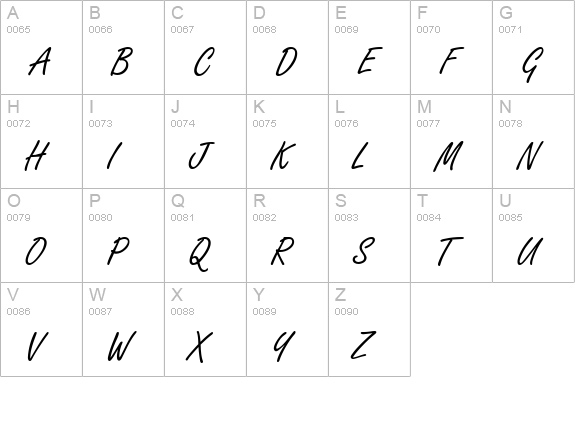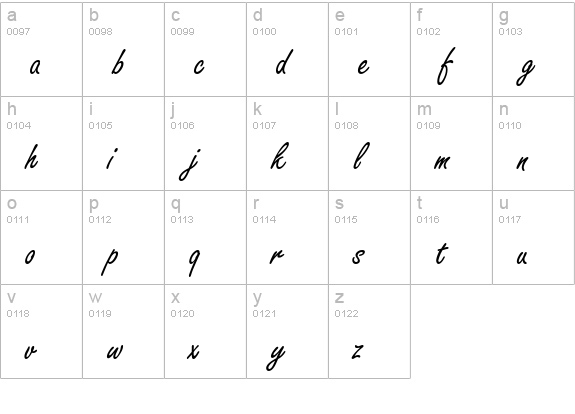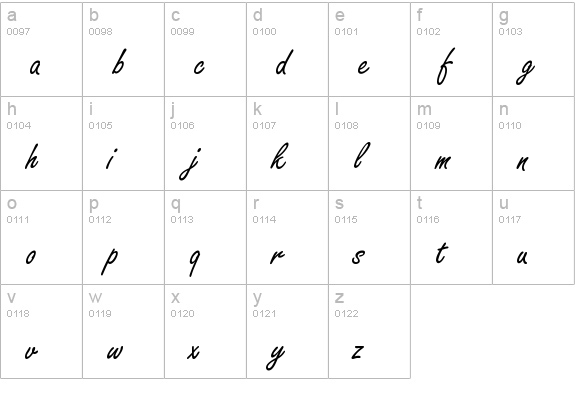
TR Freeport Plain Font Details
TR Freeport Plain font is a timeless and versatile typeface that exudes elegance and sophistication. With clean lines and a classic design, this font is perfect for a wide range of projects, from branding to editorial design. Its simplicity and readability make it ideal for both print and digital applications. What sets TR Freeport Plain font apart is that it is available for free download at FontsMarket.com. This means that you can access this high-quality font without any cost, making it a valuable asset for designers and creatives looking to elevate their work without breaking the bank. Whether you're working on a personal project or a professional assignment, TR Freeport Plain font offers a stylish and polished look that is sure to make a lasting impression.